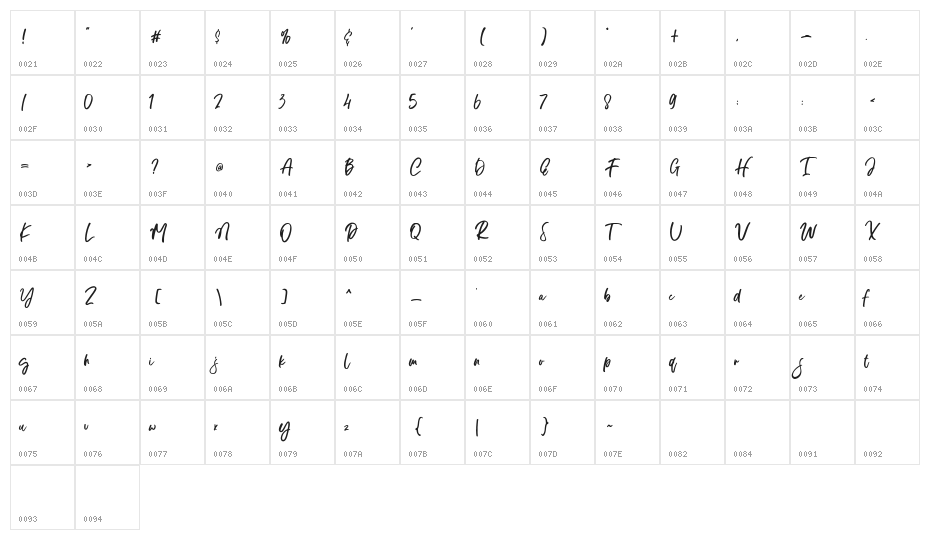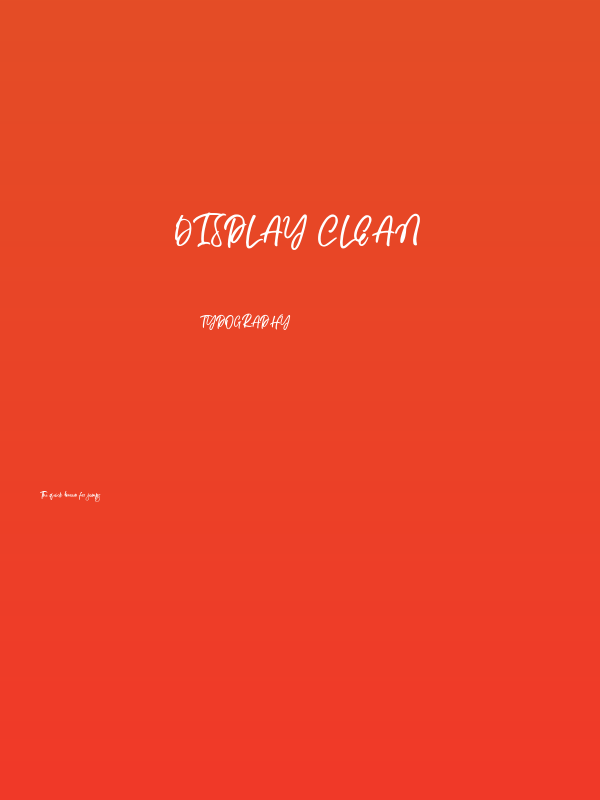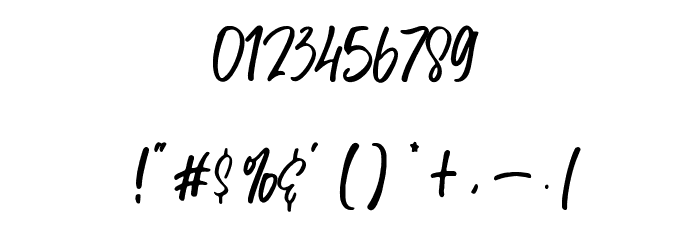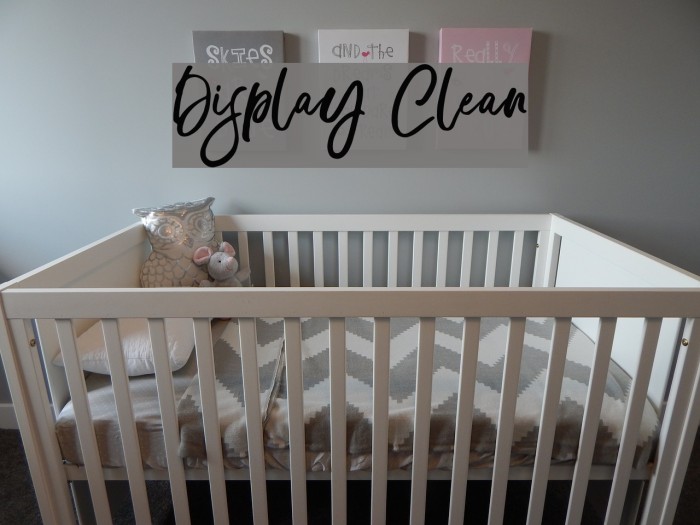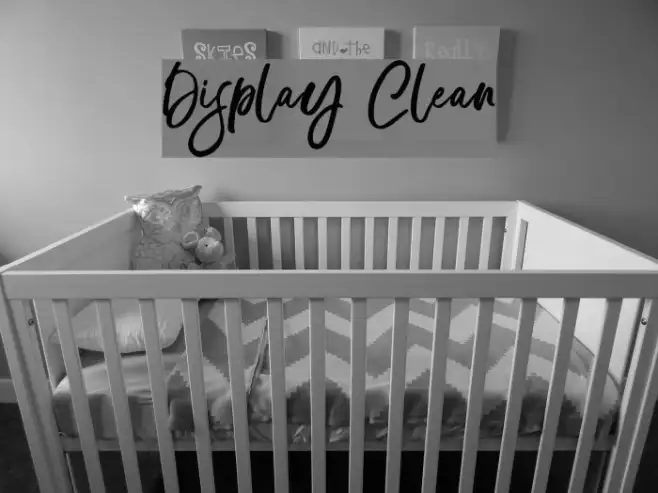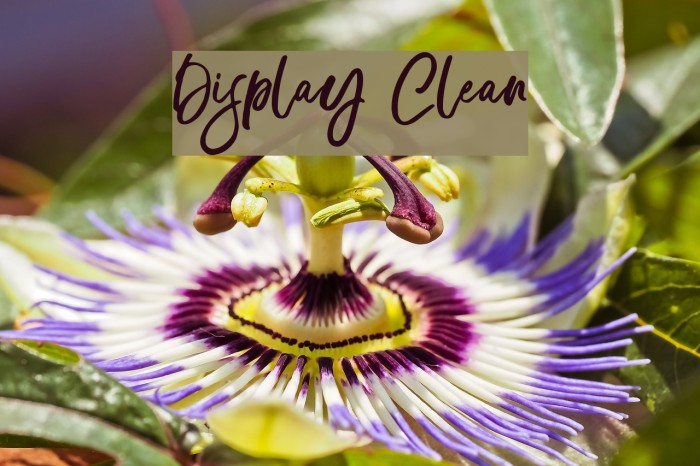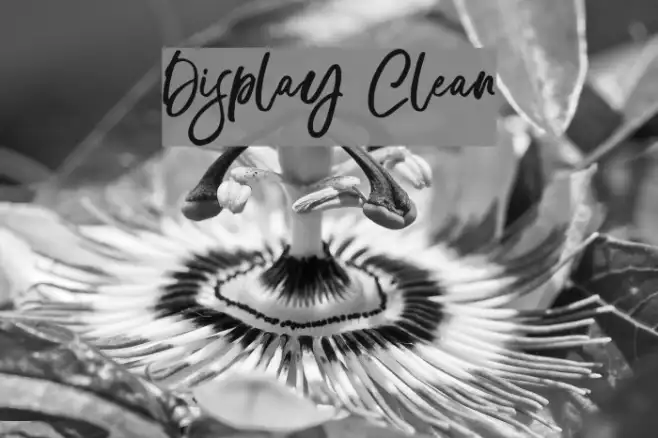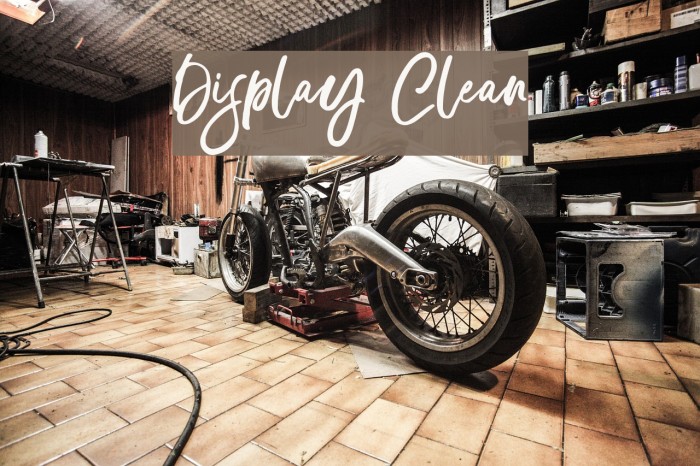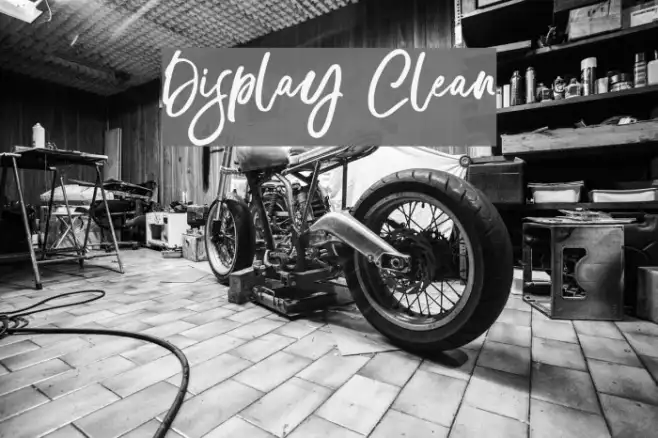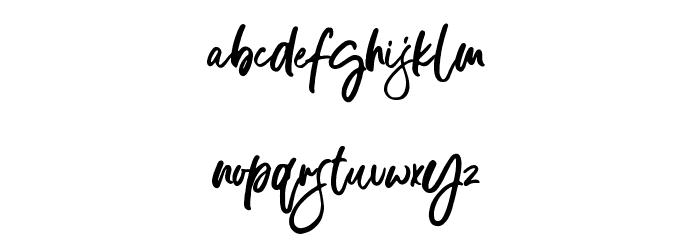
Display Clean Font
Display Clean Description
This font features a lively and expressive handwritten style, characterized by its fluid and dynamic strokes. The letters are slightly slanted, adding a sense of motion and energy. The uppercase letters are bold and prominent, while the lowercase letters maintain a consistent flow, creating a harmonious balance. The numerals and special characters are crafted with the same attention to detail, ensuring a cohesive look across all elements. This font's playful yet elegant appearance makes it suitable for a variety of creative projects.